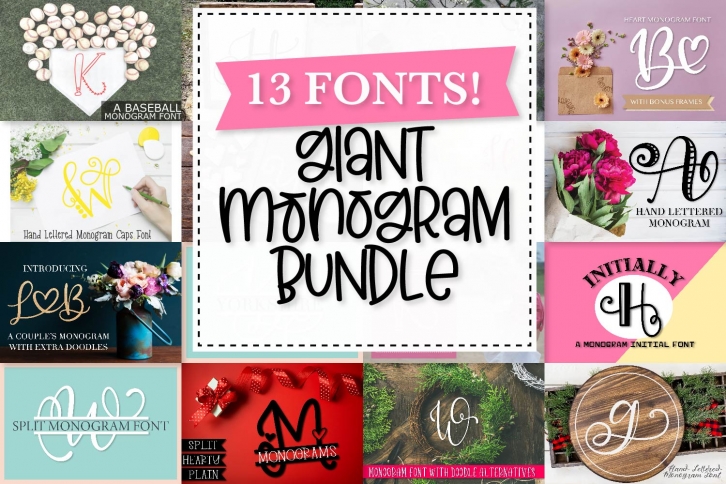
Big Monogram Bundle is a trendy and unique font with an authentic style. It was designed by Justina Tracy and it's a great choice for creative people who need such a font. It was released on February 24, 2020 and the file size is 5.44 MB. Big Monogram Bundle will add an organic vibe to any design idea!